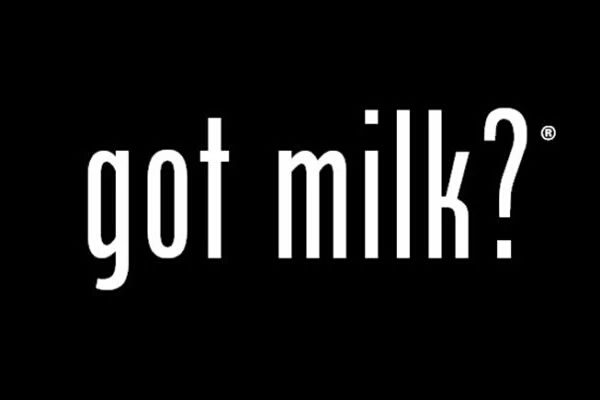
The font used in the official Got Milk? logo is called Phenix American. It was designed by Morris Benton and was published by Monotype way back in December of 2001. The original font foundry is documented as being Compugraphic. There is a total of 233 glyphs contained in this font.
This style of this font is tall and slightly whimsical. It’s an elegant sans serif font style that is perfectly aligned with the milk marketing campaign for which it is best known for. It is also a highly legible font that can be clearly read from a distance, which is of course an important factor when considering a typeface for any large marketing campaign.
The Got Milk? tagline was first conceived in 1993 by advertising agency Goodby Silverstein and Partners, and was used to promote milk sales by the California Milk Processor Board. The tagline proved wildly popular, and grew to take on a life of its own, with numerous parodies and references to the phrase found on t-shirts, the internet, and TV shows including Friends and Johnny Bravo. It has been officially licensed out to promote other brands as well, for products as diverse as Barbie Dolls to kitchenware. Even today, over 90% of US residents surveyed report being aware of this tagline. The use of this font in the Got Milk? marketing campaign proved to be an excellent choice as the logo has become instantly recognisable to anyone who has previously seen it.